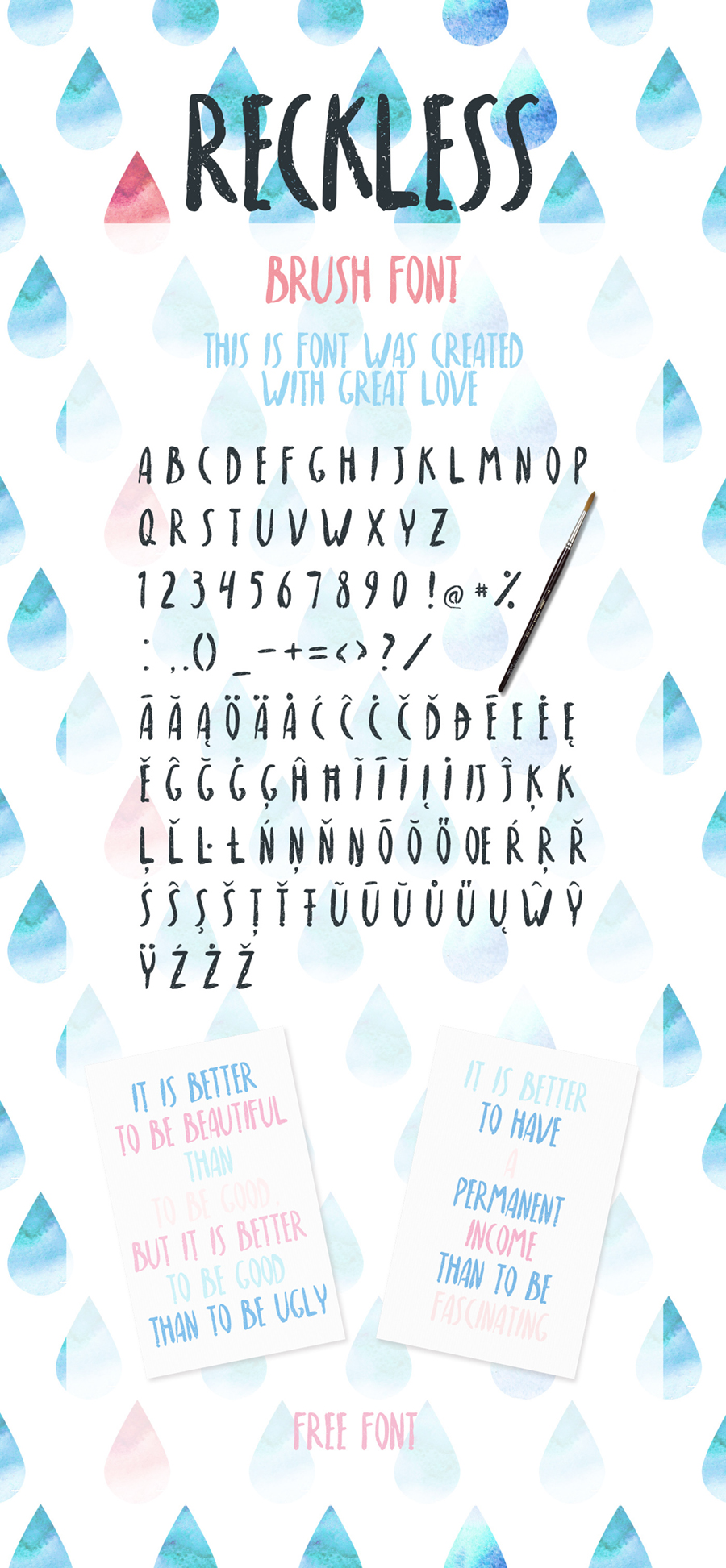
Reckless Free Font
Here’s a hand-brushed typeface that will make your design looks fun and adorable. You can use this font freely for both personal and commercial projects. It can be used for various purposes such as invitation, t-shirt, letterhead, posters, badges, etc.